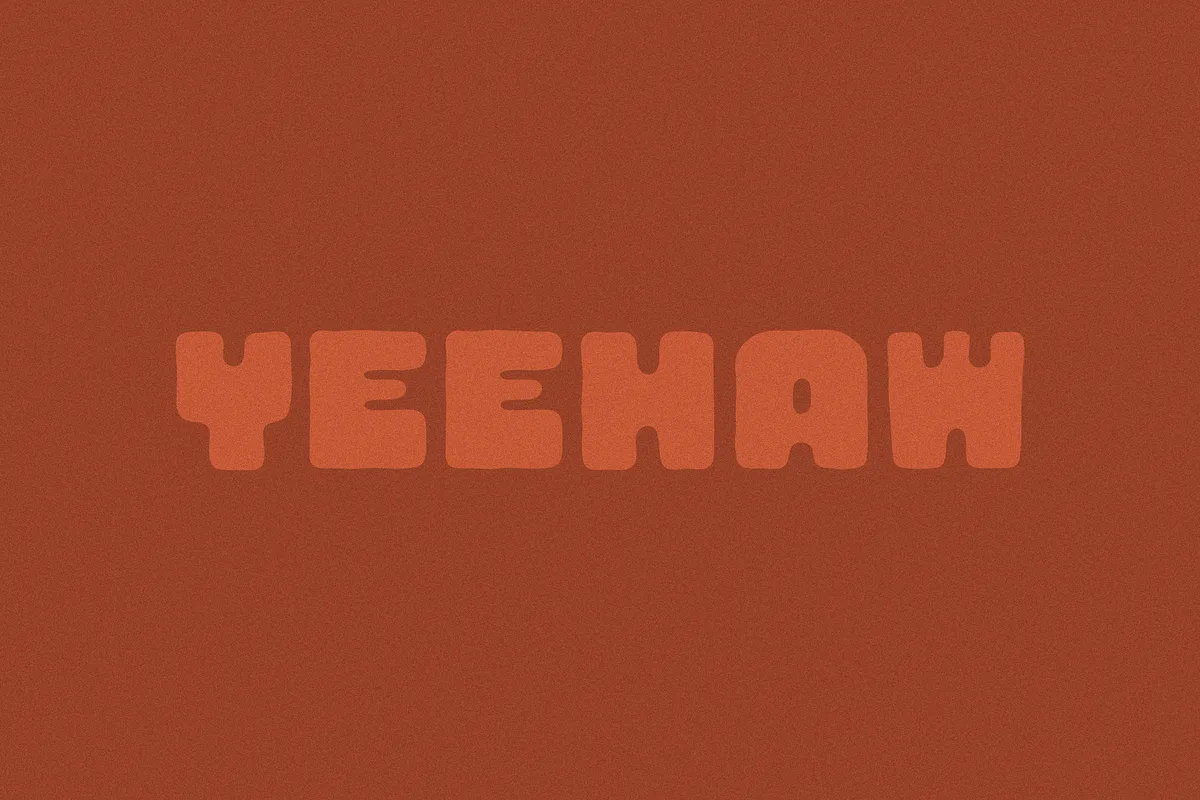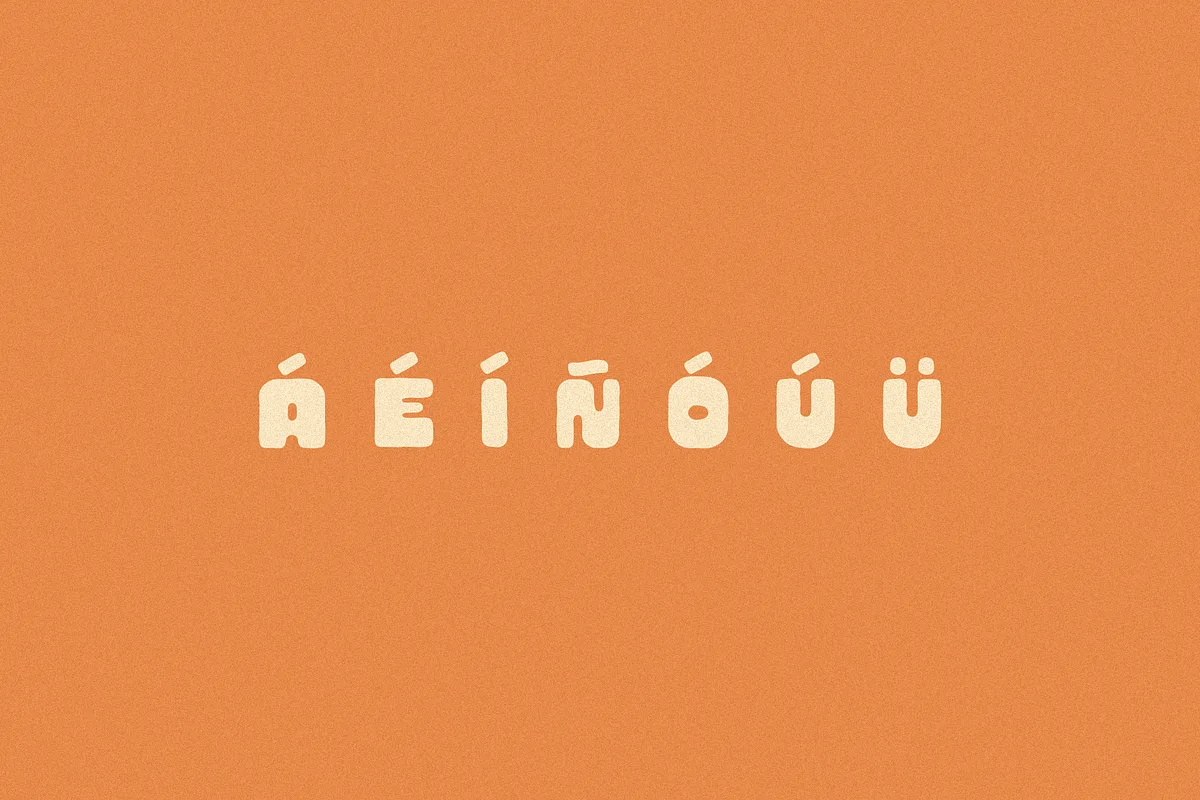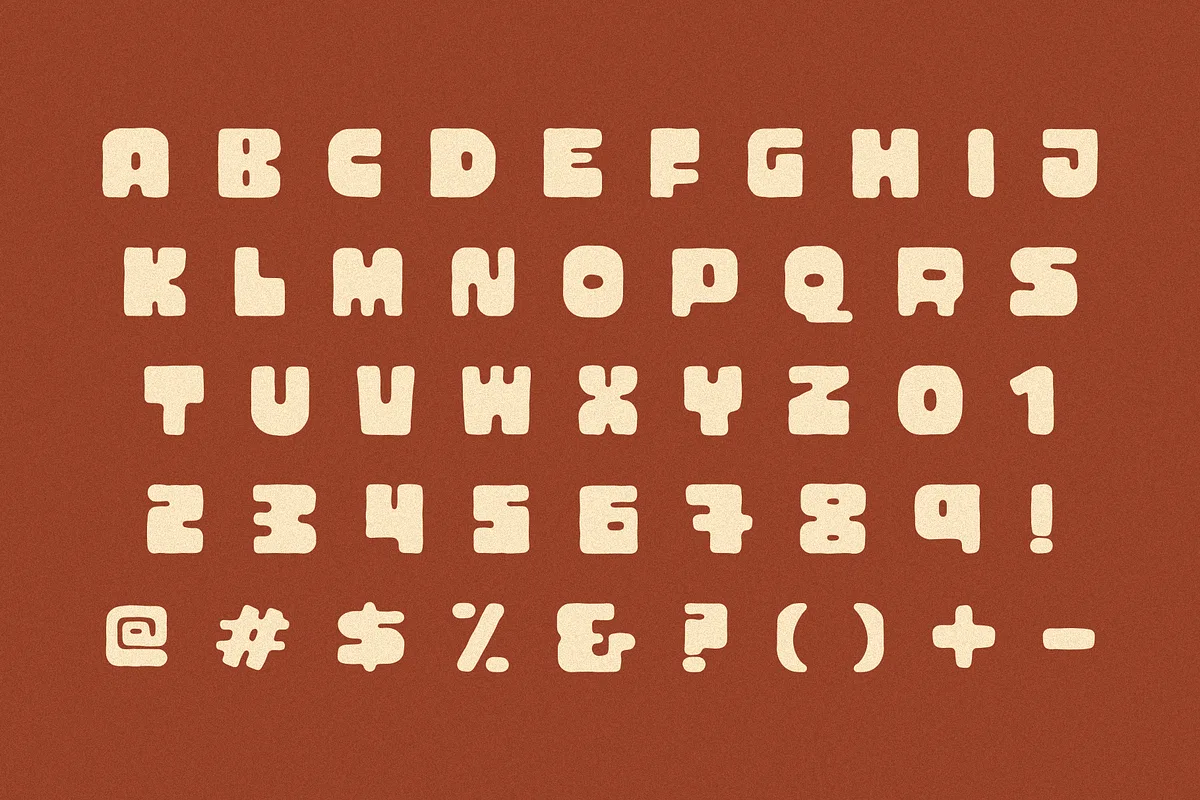
Marfa is a groovy and hand-drawn typeface. This typeface is all caps and adds a hand made retro feel to designs. It was hand drawn to look great for logos, display, quotes, art, and a handmade touch.